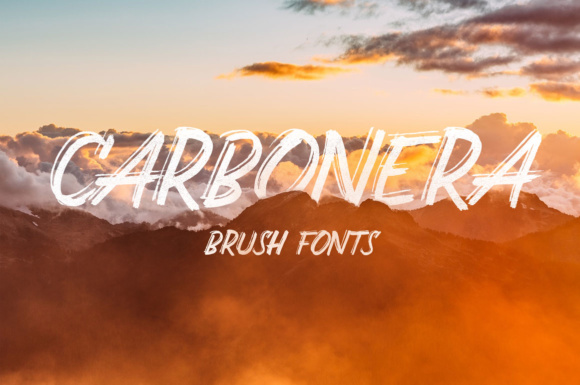
The Unconventional Charm of Carbonera Font
I still remember the design project that led me to discover the Carbonera font. I was working on a branding campaign for a sustainable fashion brand, and I needed a font that would convey a sense of gritty authenticity. I’d scoured through countless font libraries, but nothing seemed to fit the bill. That was until I stumbled upon Carbonera – a beautiful display font with a unique story behind it.
A Font Like No Other
Carbonera’s story begins with its unconventional origins. The unique strokes that make up this font come from cigarette filters, giving it a gritty, textured look that’s hard to find in digital typography. This font has an authentic appeal that can instantly elevate the nature of your work. Whether you’re a designer, crafter, or creative hobbyist, Carbonera is sure to add a touch of industrial chic to your projects.
So, what do I love about Carbonera? Here are a few things that stand out:
• ✨ Unique and unconventional design that’s sure to turn heads
• ✅ Textured, authentic appeal that adds depth to your work
• 💯 Highly legible, even at larger font sizes
• 🎨 Versatile and can be used for a variety of design projects, from branding to packaging
Of course, no font is perfect, and Carbonera has a few quirks to be aware of:
• 🤔 Limited use of OpenType features, which may limit its use in certain design applications
• ⚠️ May not be suitable for body text or smaller font sizes due to its textured nature
The Story Behind Carbonera
The story behind Carbonera is a fascinating one. According to the font’s creators, the unique strokes that make up Carbonera were inspired by cigarette filters. This unconventional approach to font design has resulted in a truly one-of-a-kind font that’s sure to turn heads.
What inspired the creation of Carbonera? The unique strokes that make up Carbonera were inspired by cigarette filters.
Is Carbonera suitable for body text? No, Carbonera is best used for display text or headlines due to its textured nature.
Does Carbonera support OpenType features? Carbonera has limited support for OpenType features, but it does offer some advanced typography features.